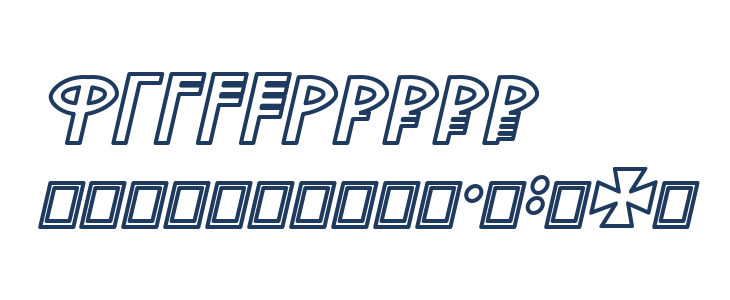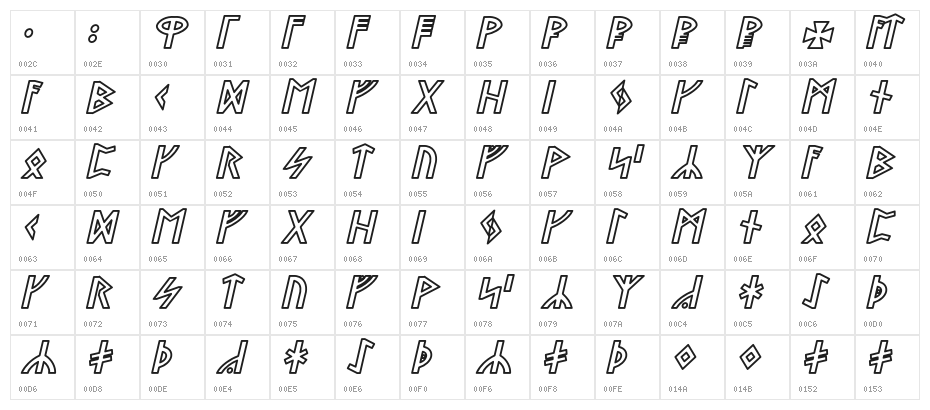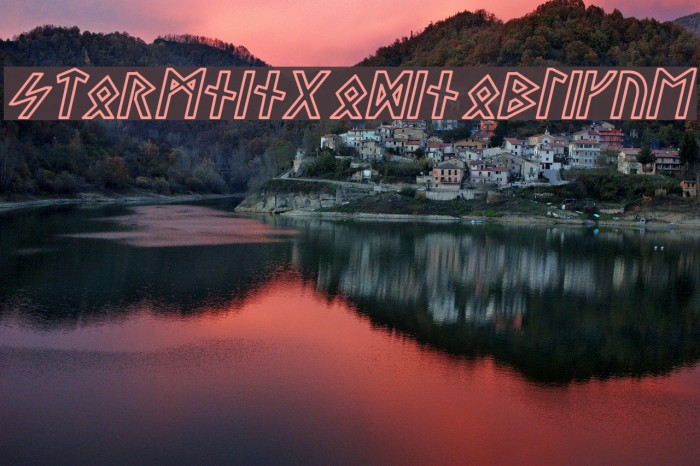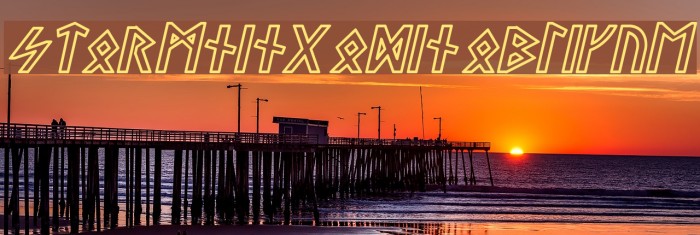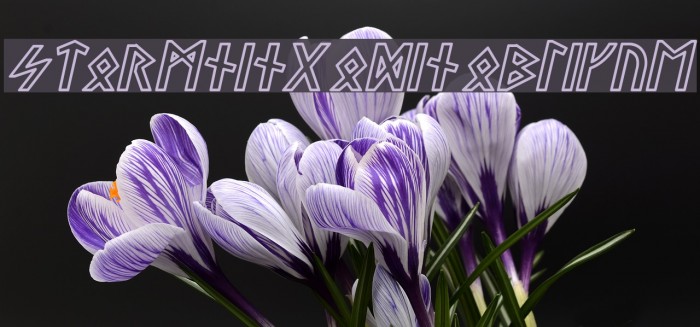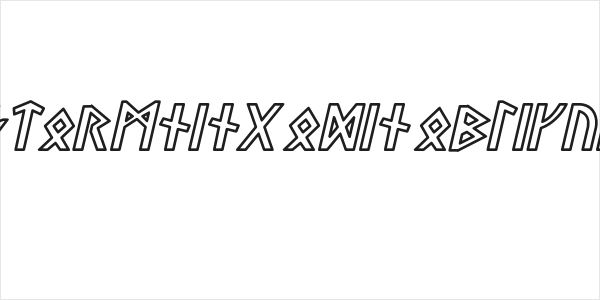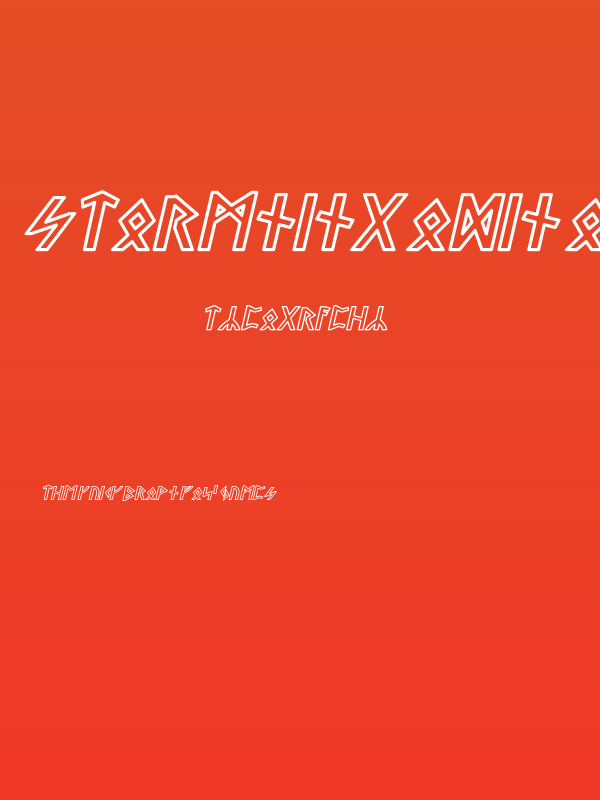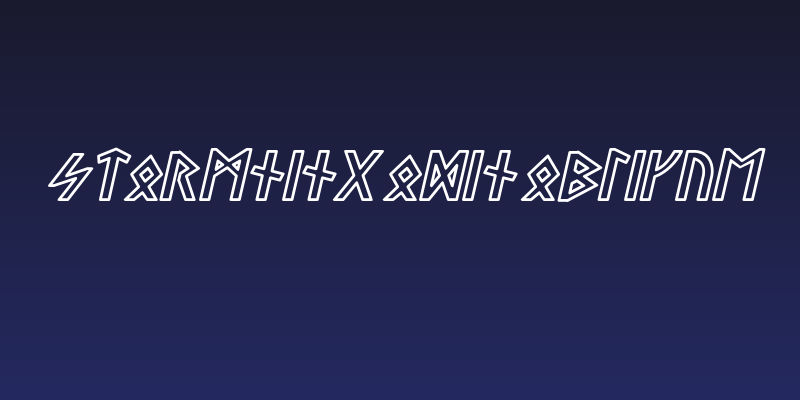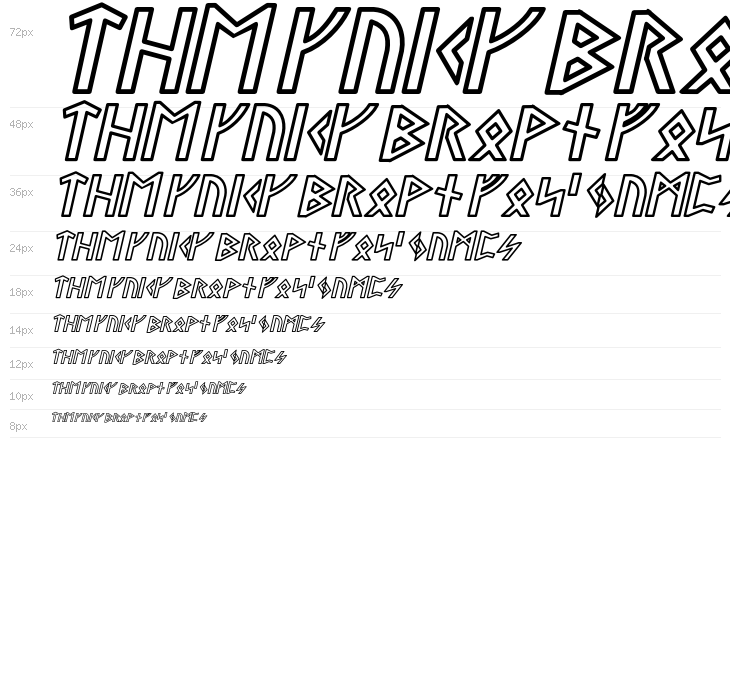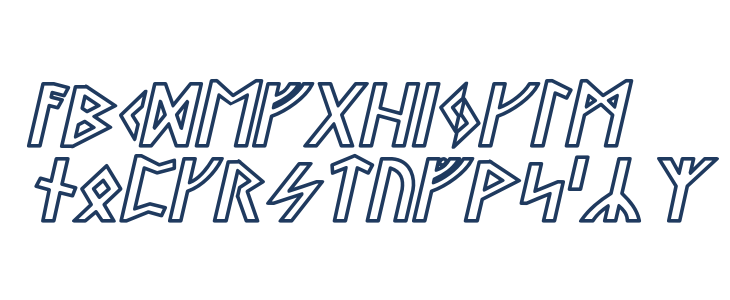
Stormning Odin Oblique Font
Stormning Odin Oblique Description
This font features a bold, angular design with a distinct geometric style. Each character is outlined, giving it a three-dimensional effect that enhances its visual impact. The uppercase letters are sharp and dynamic, with unique angles and cuts that create a sense of movement. The lowercase letters maintain the same angular theme, providing consistency across the typeface. The numbers and special characters are equally bold and stylized, fitting seamlessly with the overall design. This font's oblique orientation adds to its dynamic appearance, making it ideal for attention-grabbing headlines or logos.
| Proposed Projects | Ideal for use in logos, branding, posters, and any project requiring a bold, impactful typeface. |